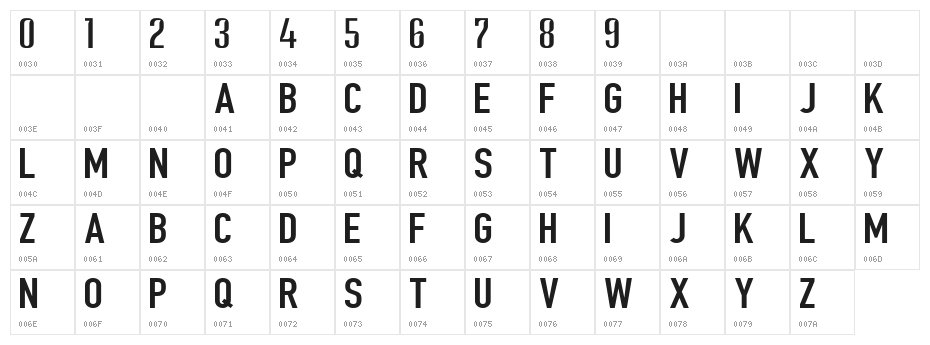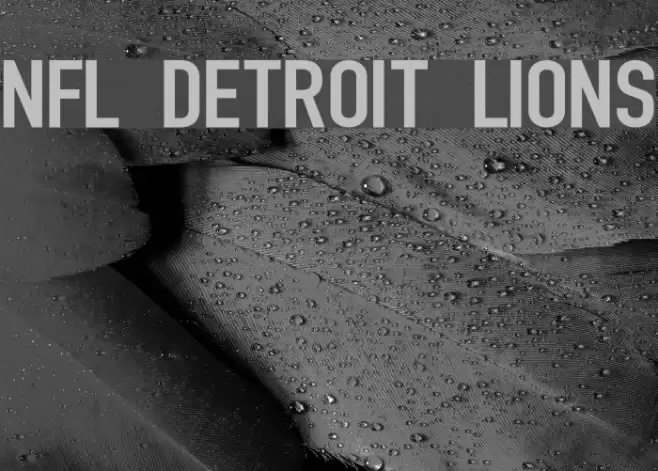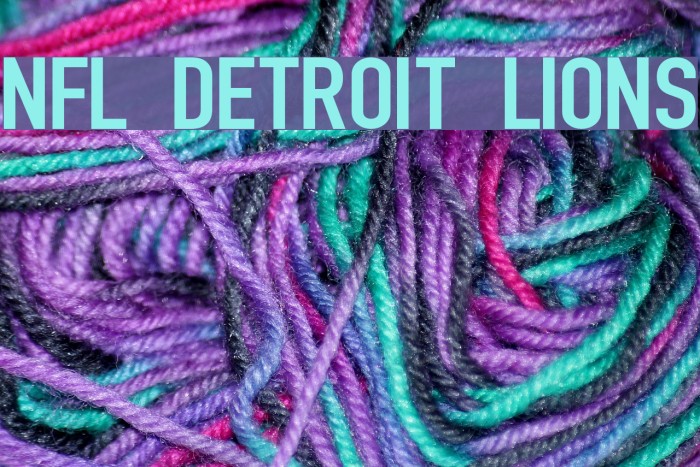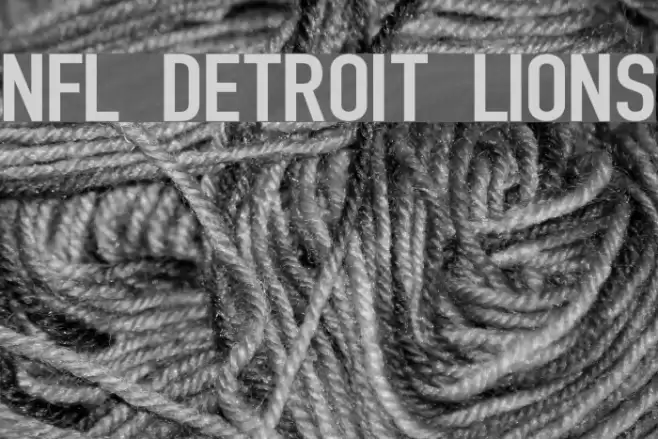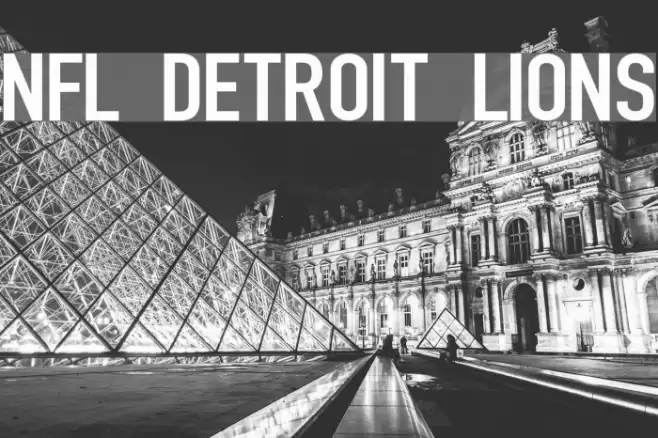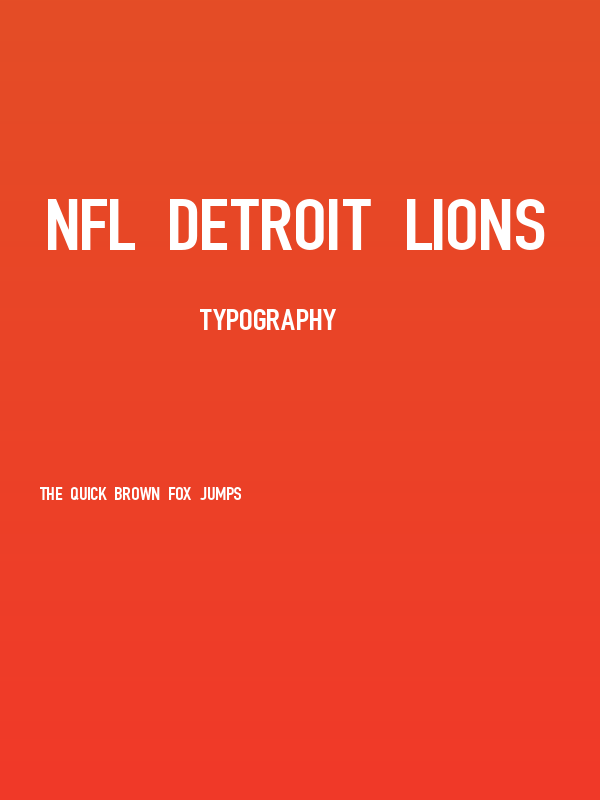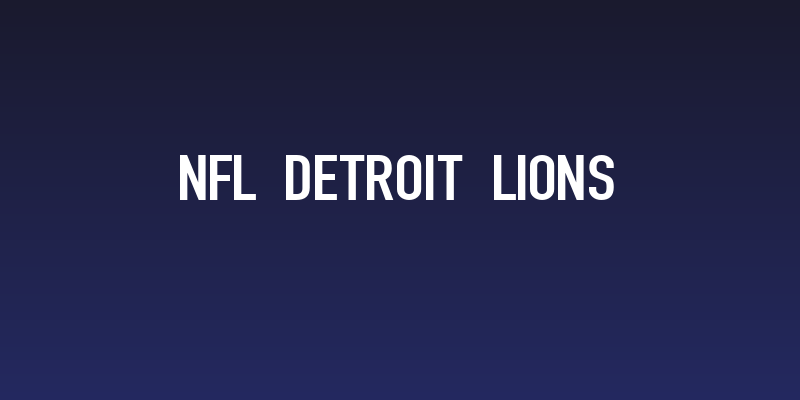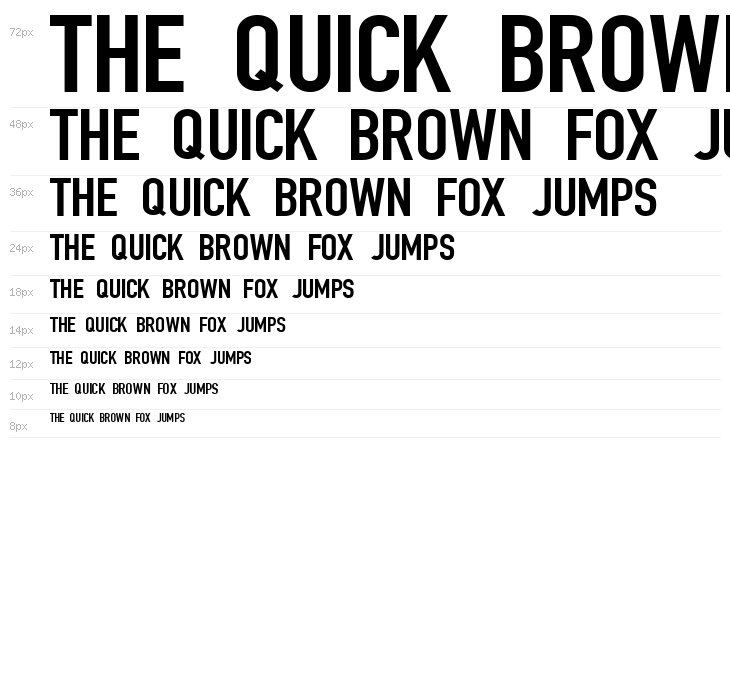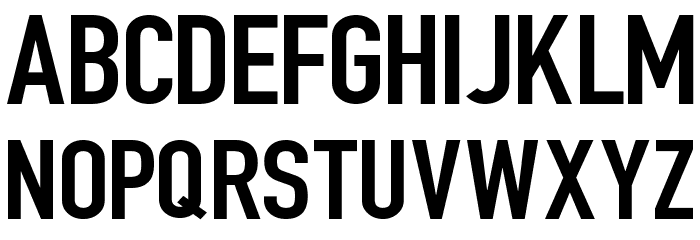
NFL Detroit Lions Font
NFL Detroit Lions Description
This font features a bold and modern design with clean, straight lines and a strong geometric structure. The uppercase letters are uniform in height, creating a cohesive and balanced appearance. The numbers are equally bold, maintaining the same height as the uppercase letters, which ensures consistency across different types of content. The font's overall style is assertive and impactful, making it ideal for attention-grabbing headlines or branding materials. Its simplicity and clarity make it versatile for various design applications.